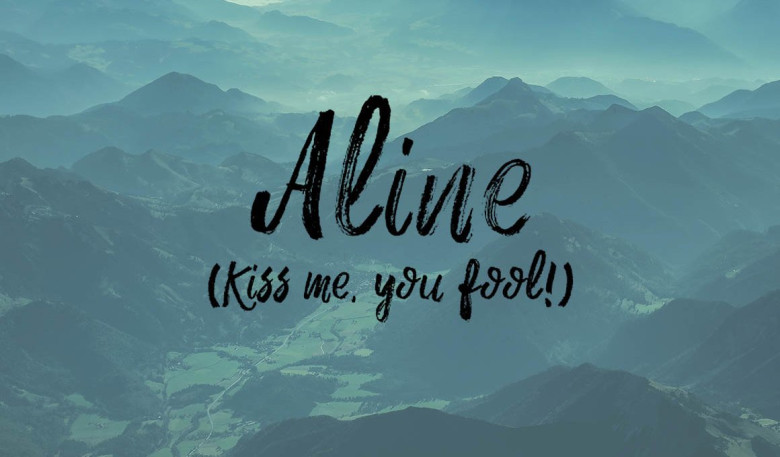
Aline Brush Font
Aline Brush – handwritten font with brush style and still have their own passion. Aline Brush designed and shared by Ton Dwight. Made with a dry scratch style but still looks cool and very suitable for use in a variety of promotional, business, and other art needs, such as branding projects, homeware designs, product packaging – or simply as a stylish text overlay to any background image.